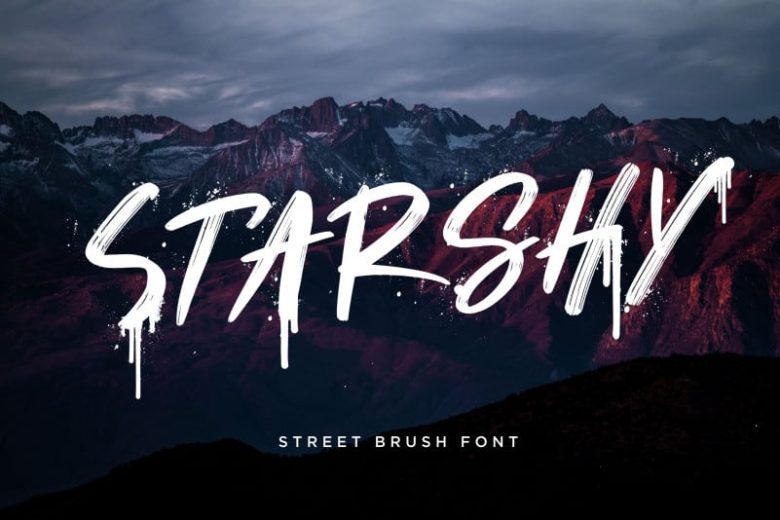
Starshy Brush Font
Starshy is a brush font with street graffiti style and scratch effect make this font looks bold and natural. Starshy street font suitable for design, element design, wedding, event, t-shirt, logo, badges, sticker, and awesome work, etc…
Starshy street font comes with upper and lowercase Basic Characters, Numbers, Marks and Punctuation. Diacritics are also available for Western and Central European Languages. This font is free for PERSONAL USE.